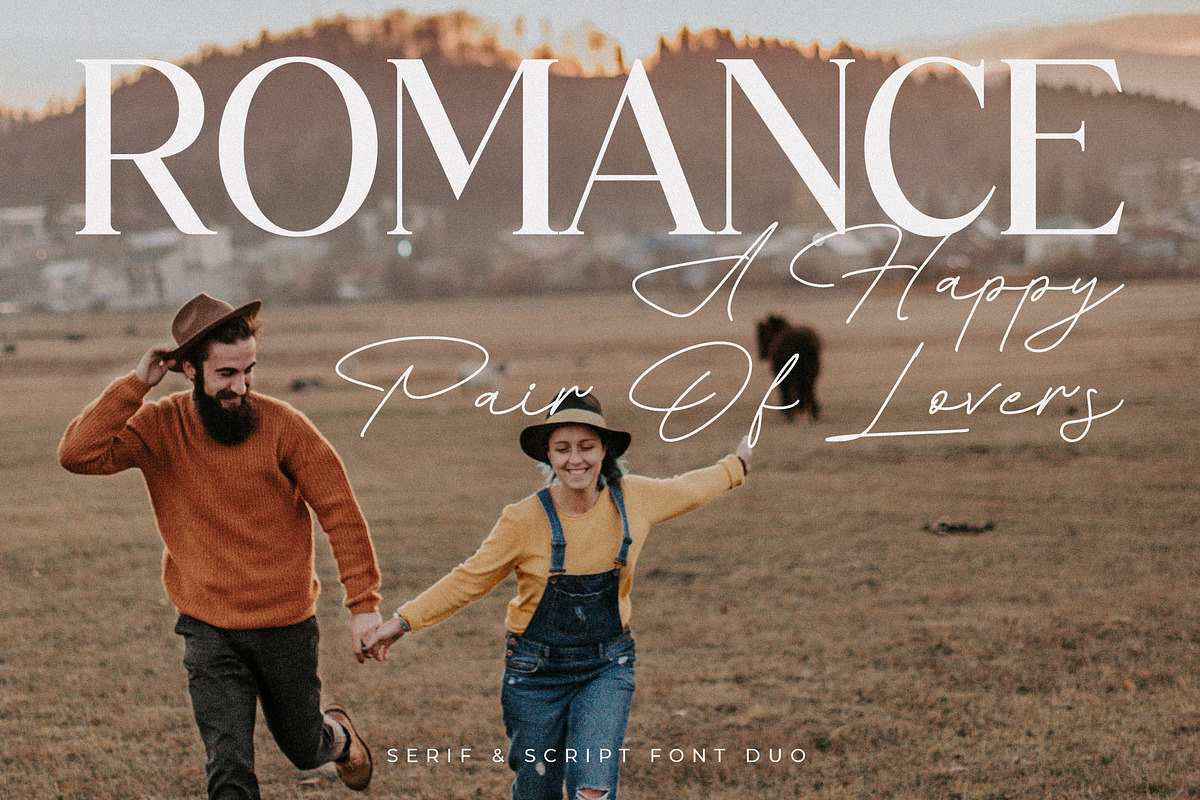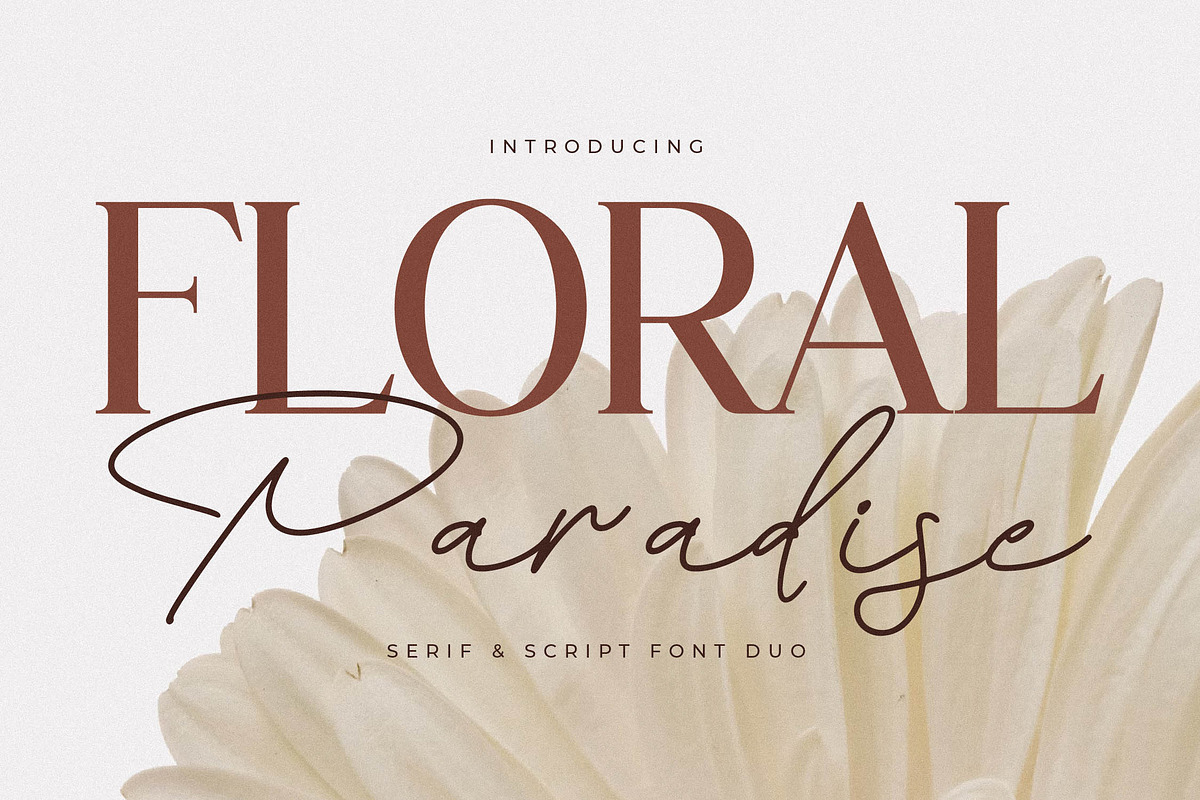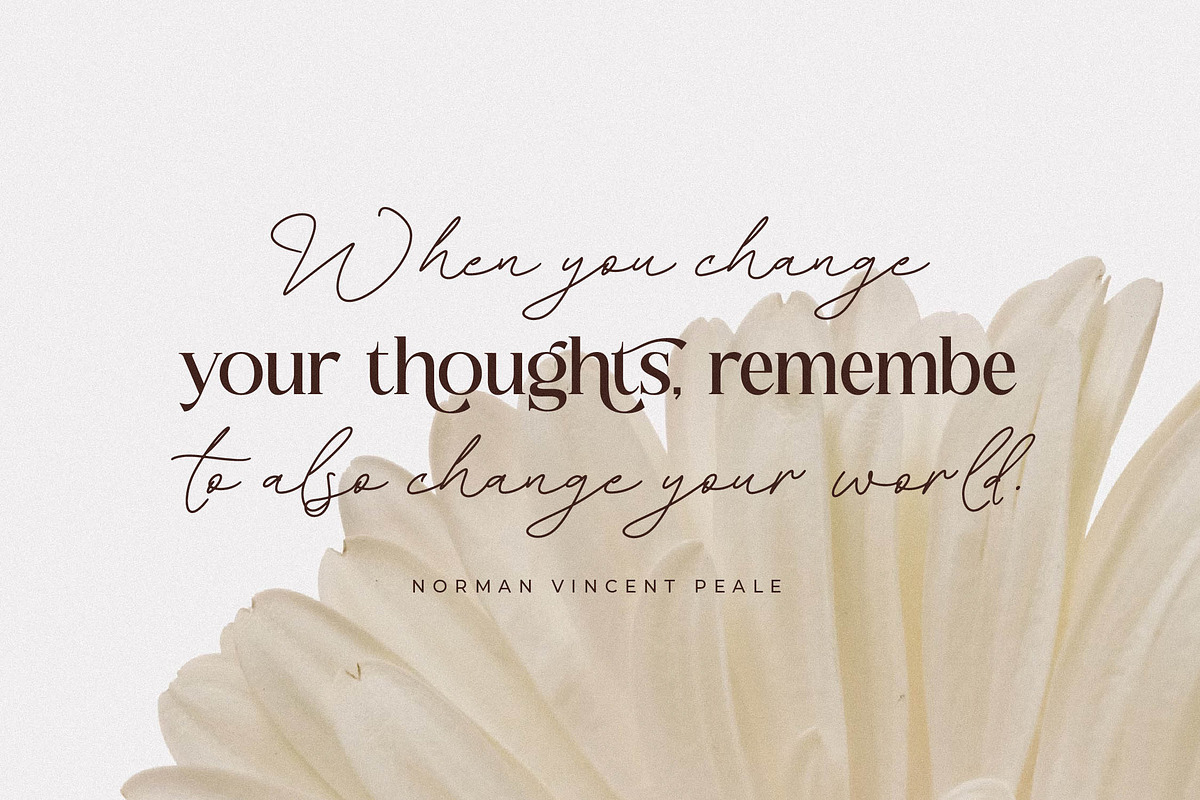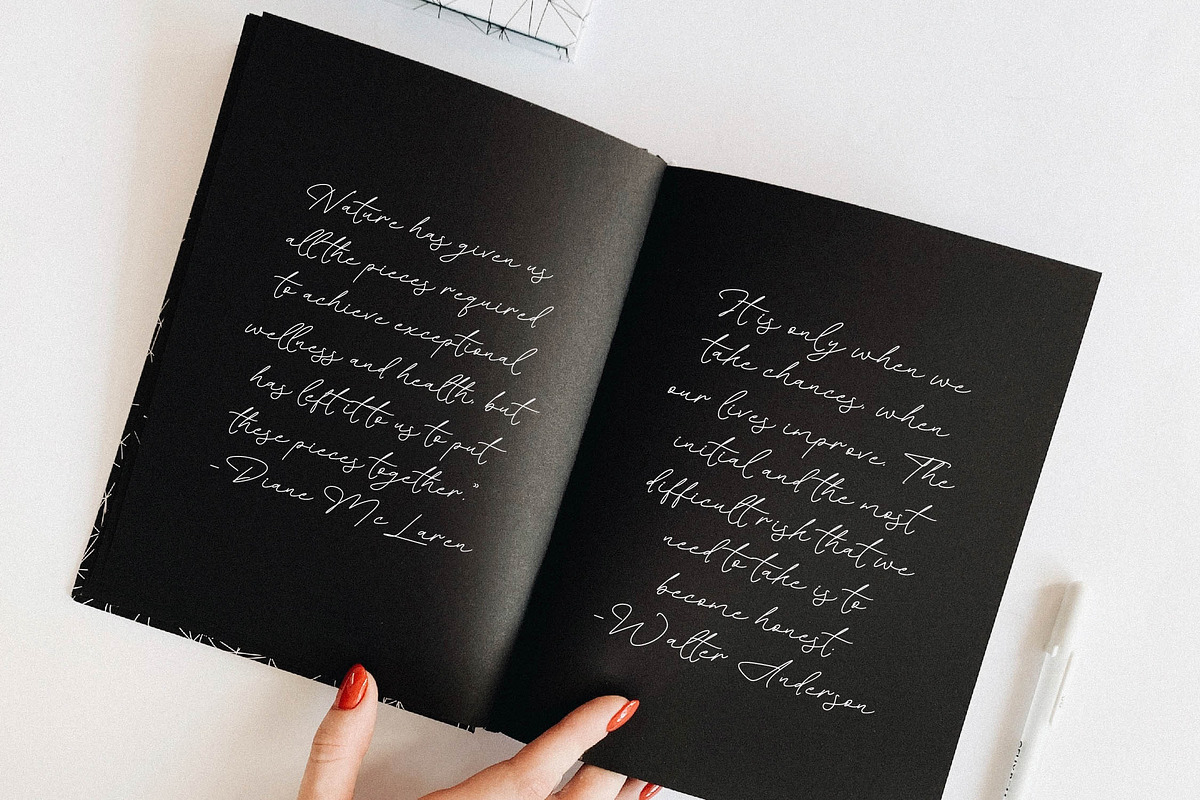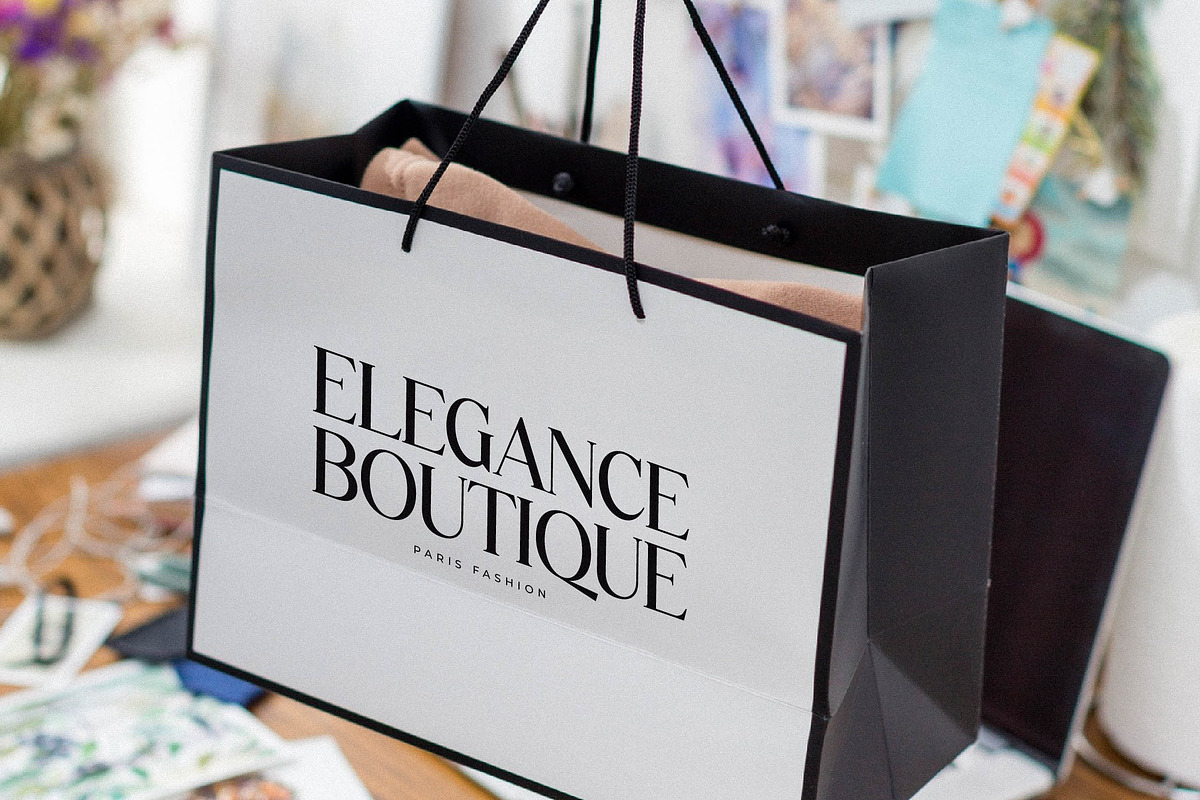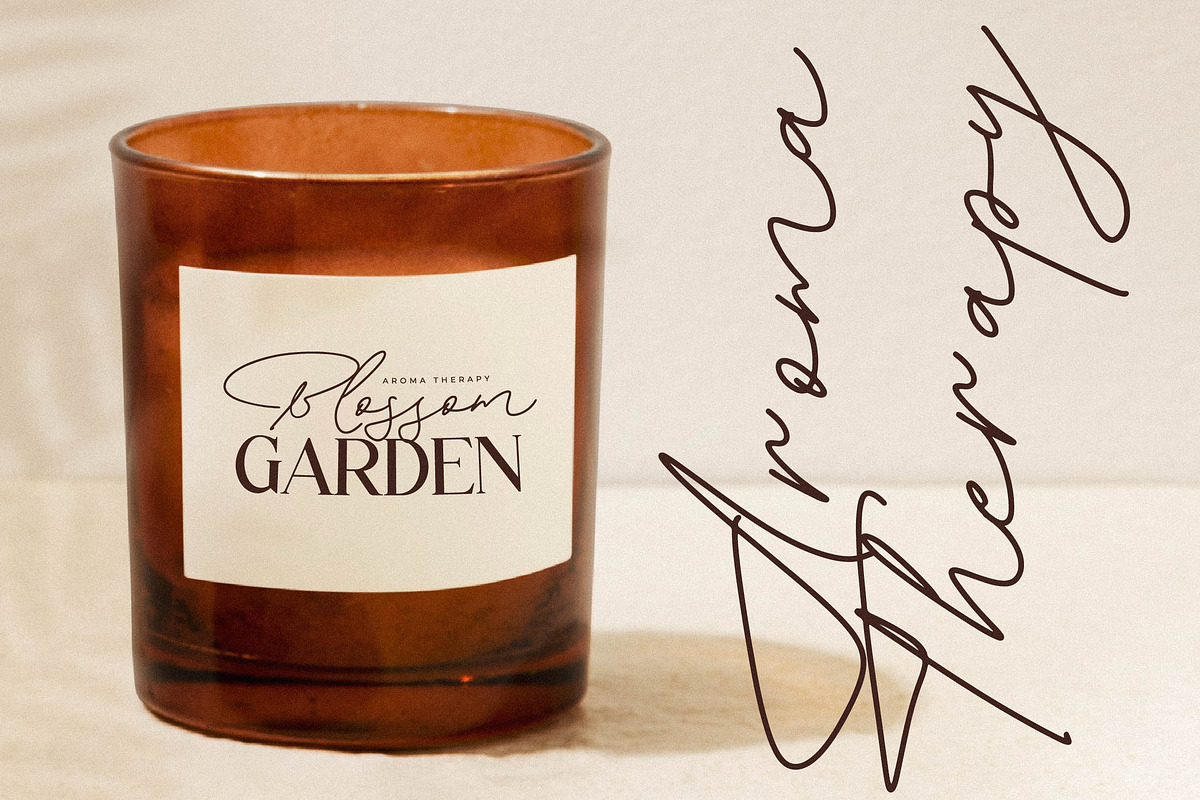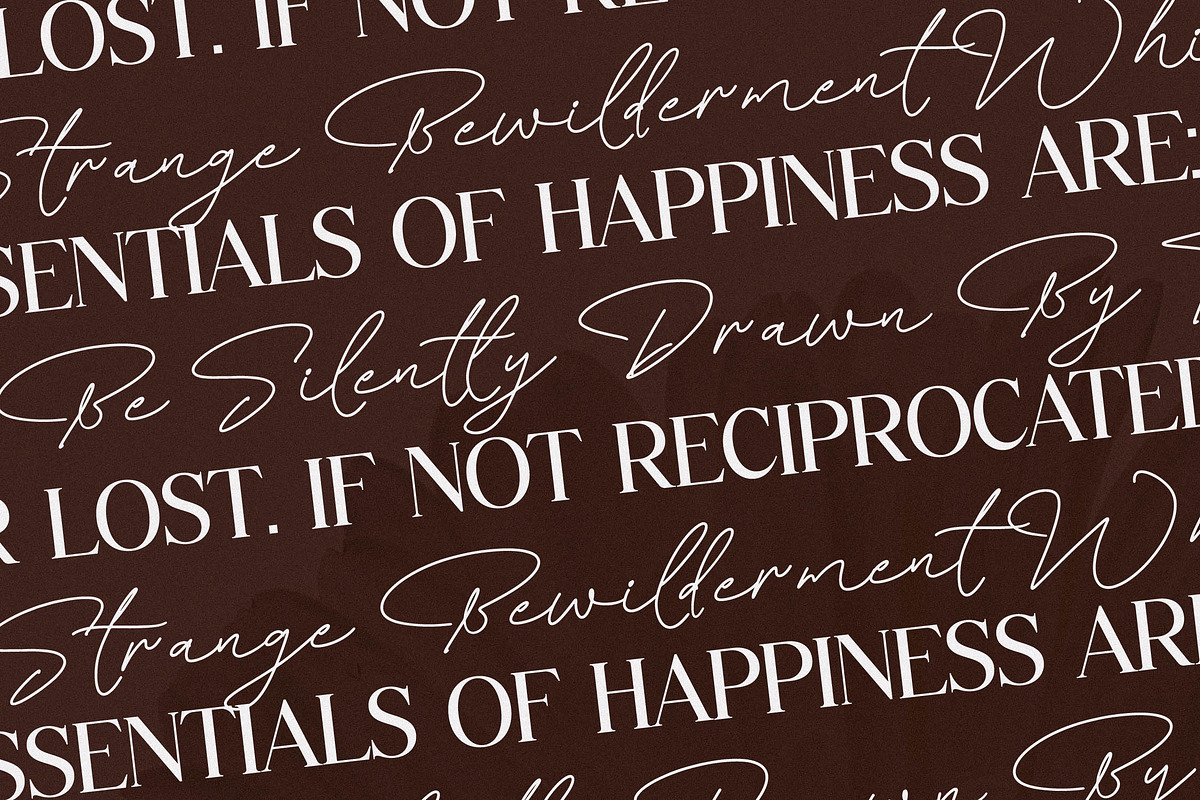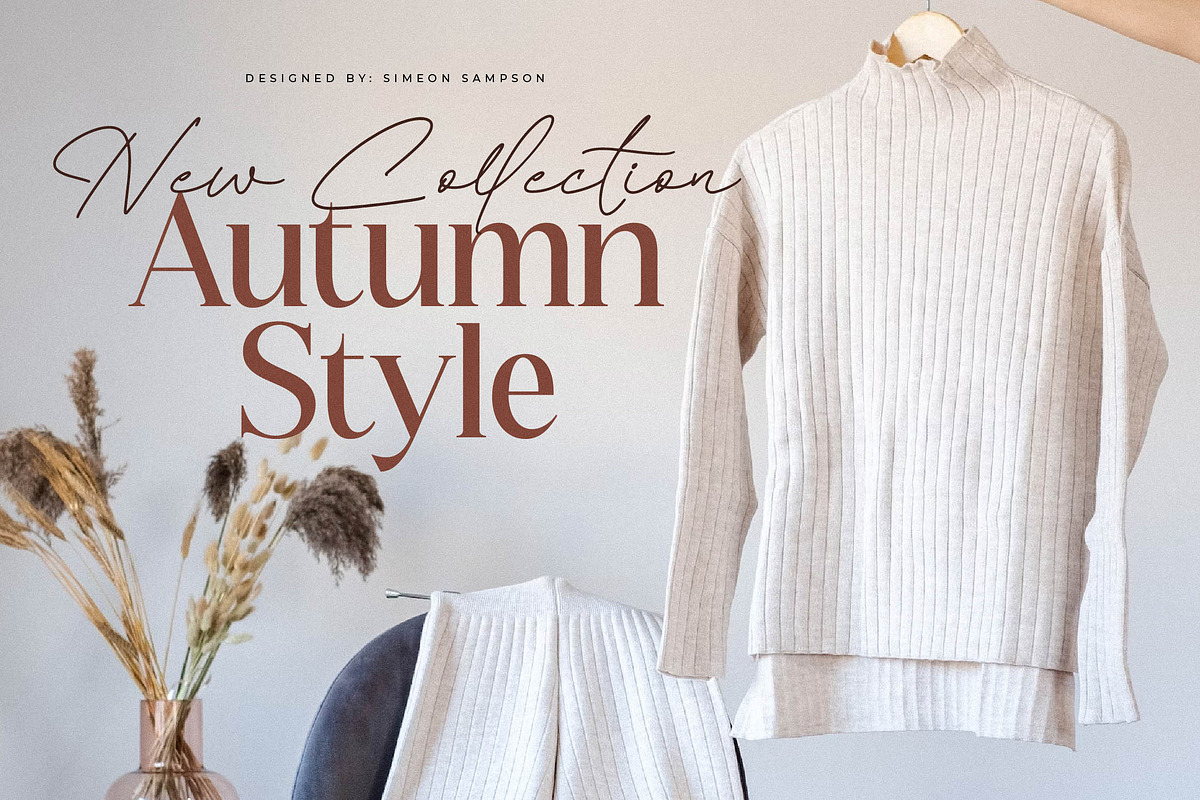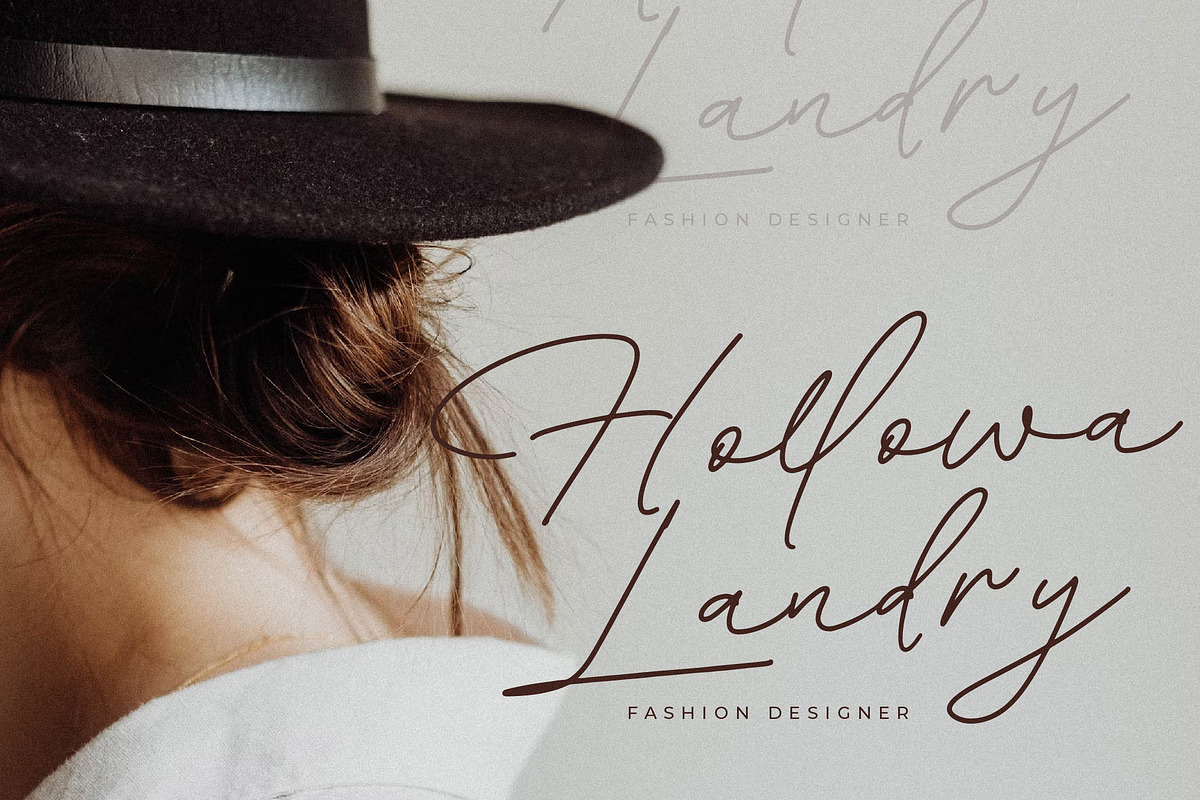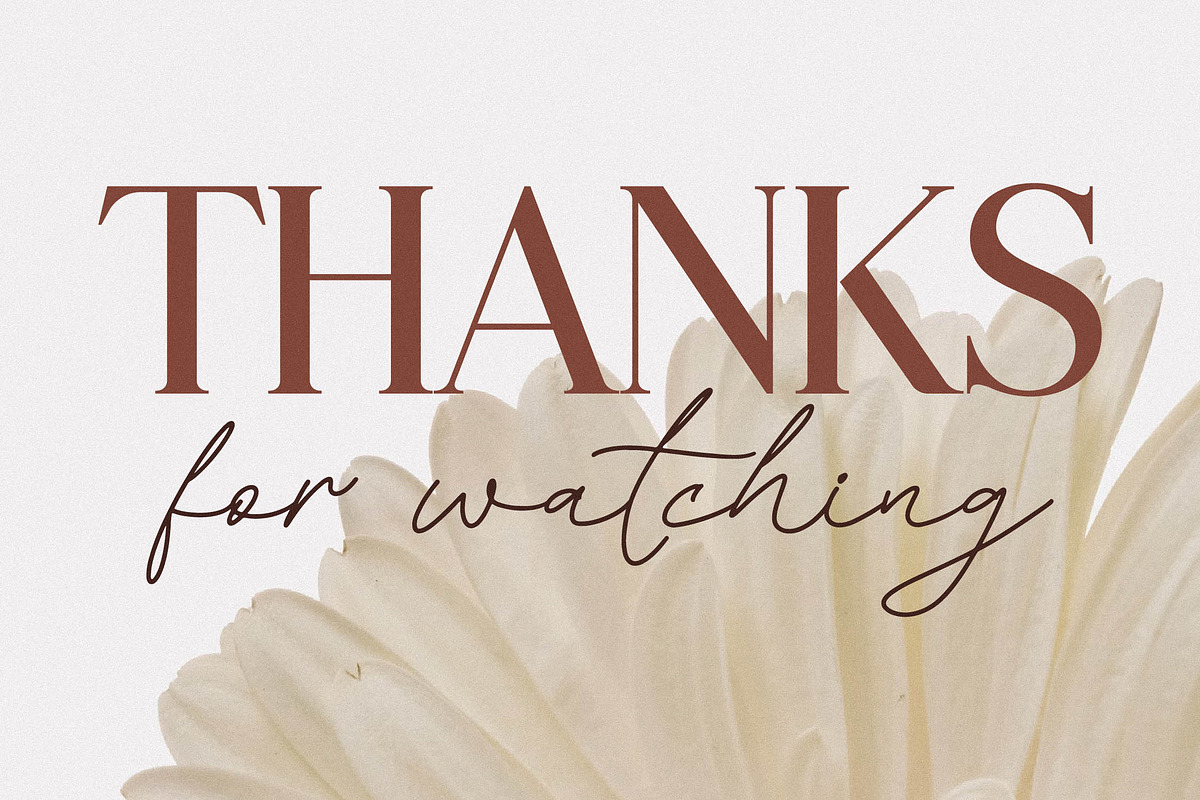
Floral Paradise Font Duo
Proudly present Floral Paradise Font Duo , created by Storytype, A serif and script typeface that has own unique style & modern look. This typeface is perfect for an elegant & luxury logo, book or movie title design, fashion brand, magazine, clothes, lettering, quotes, and so much more.